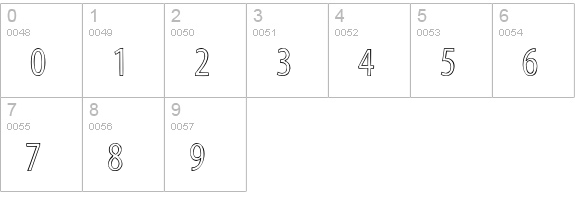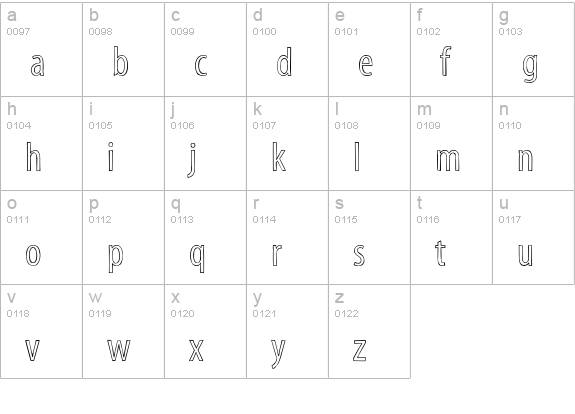
Myriad Std Sketch Font Details
Myriad Std Sketch font is a unique and creative typeface that brings a hand-drawn, sketchy feel to your designs. With its playful and informal appearance, this font is perfect for adding a touch of personality and charm to your projects. The irregular lines and rough edges give Myriad Std Sketch a whimsical and artistic look that is sure to make a statement. The best part is that Myriad Std Sketch font is available for free download at FontsMarket.com! You can easily add this fun and versatile font to your collection without any cost, making it a great choice for both personal and commercial projects. Whether you're designing posters, invitations, logos, or any other creative work, Myriad Std Sketch font is a fantastic option to bring a handcrafted touch to your designs. Download it today and let your imagination run wild with this delightful typeface.